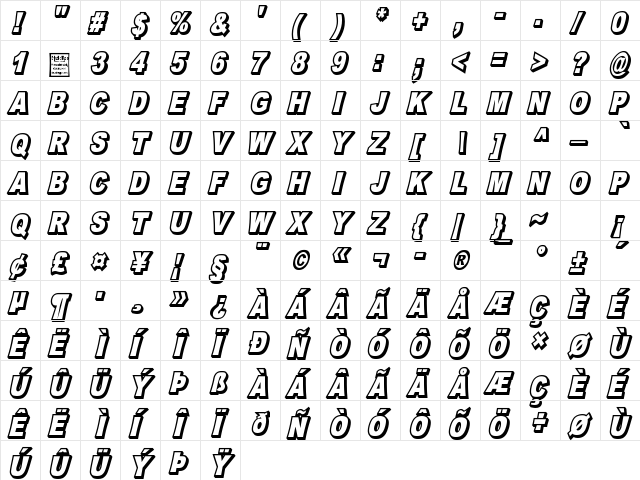
OMNIBLACK Outline Italic Regular
| Foundry | StudioTypo |
| Designer | Mehmet Abaci |
Design Context for OMNIBLACK Outline Italic Typeface
OMNIBLACK Outline Italic brings ornamental detail and strong personality to headlines and identities, where visual impact matters more than quiet functionality. The dynamic lean of this cut emphasises speed and emphasis in any layout.
Font Pairing: Pair with a clean neutral sans-serif for body copy to let OMNIBLACK Outline Italic's character lead without overwhelming the composition.
Pro Tip: Treat OMNIBLACK Outline Italic as the centrepiece of your typographic hierarchy. One strong heading set in a decorative face can carry an entire layout.